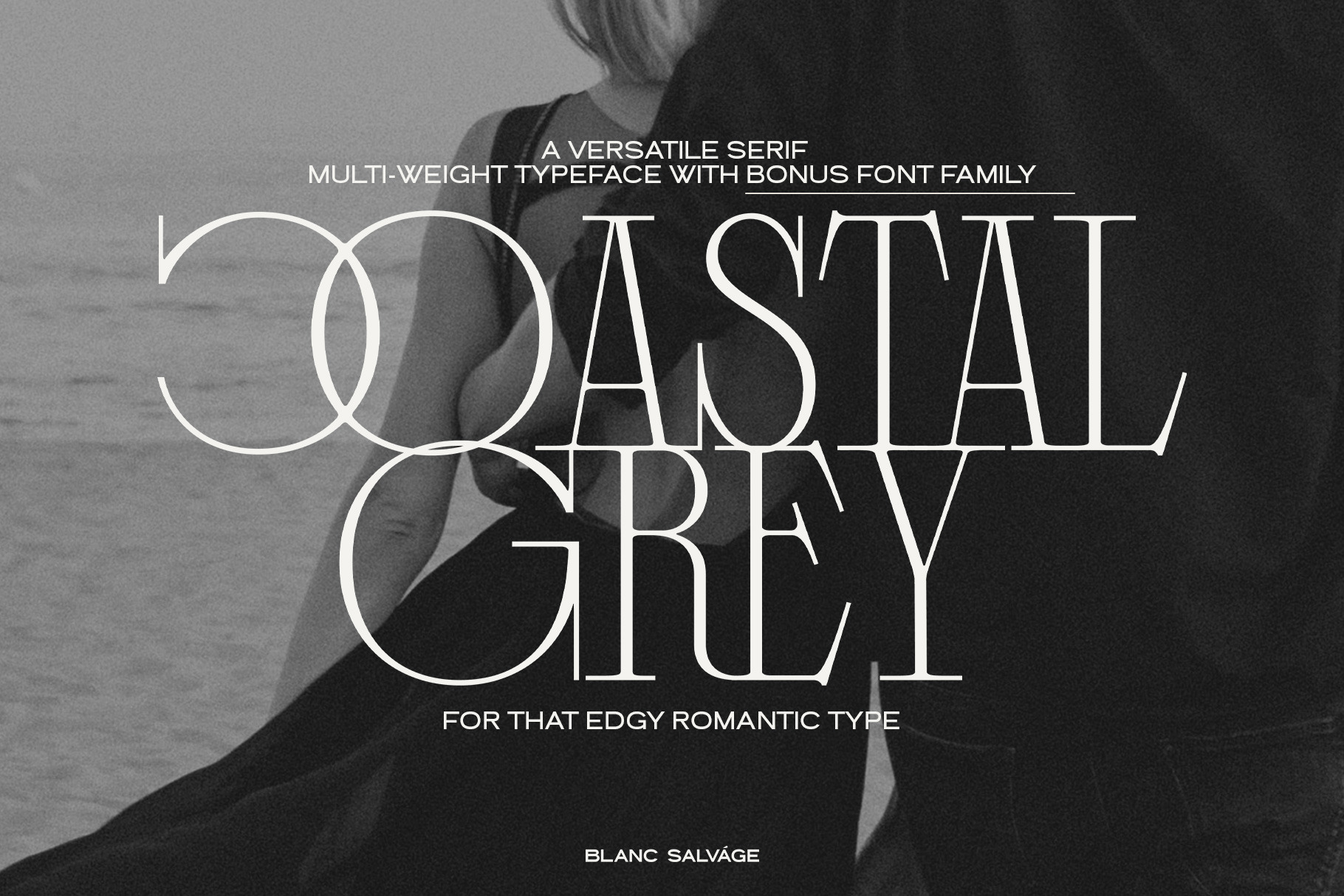
Coastal Grey Serif 4-Font Family
Meet, Coastal Grey, an elegant serif with a mix of edgy styled alternates. She's named after my son's middle name and his favorite place in the world — the coast. Just as the coast can be serene, vibrant, and everything in between, Coastal Grey captures a spectrum of moods and styles that can enrich your creative designs like no other.
Coastal Grey is not just a single font. It's a font family!
This font is split into 4 versions: light and regular weight in short and long serifs. This adds a whole new level of versatility to your font collection. This serif font transforms from romantic to edgy and exaggerated to dainty with just a few clicks, think of the possibilities!
As a cherry on top, I'm also including a special BONUS! You'll receive an all caps version of all 4 fonts re-coded with the combination of condensed and round letters.
Light Long Serifs (uppercase + lowercase)
Light Short Serifs (uppercase + lowercase)
Regular Long Serifs (uppercase + lowercase)
Regular Short Serifs (uppercase + lowercase)
Bonus Version (all 4 from above without lowercase)
Numbers and punctuation
Foreign language support
Alternate characters and ligatures